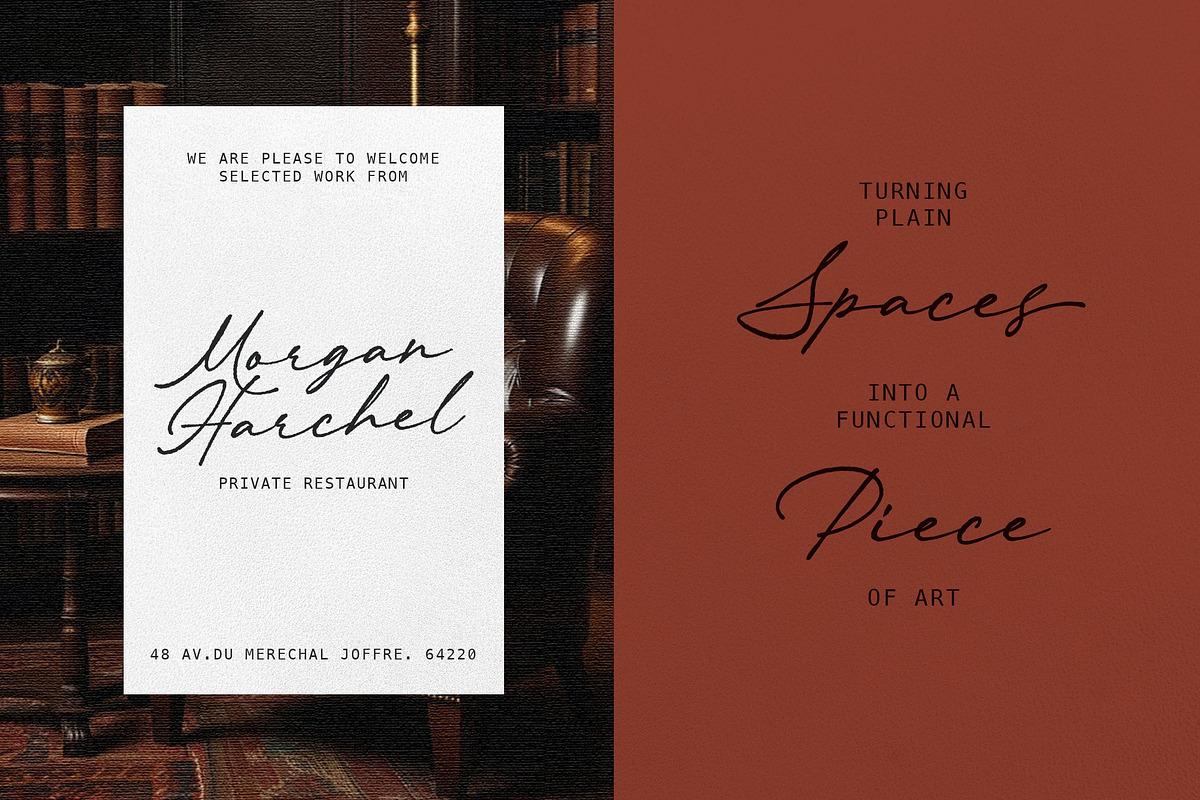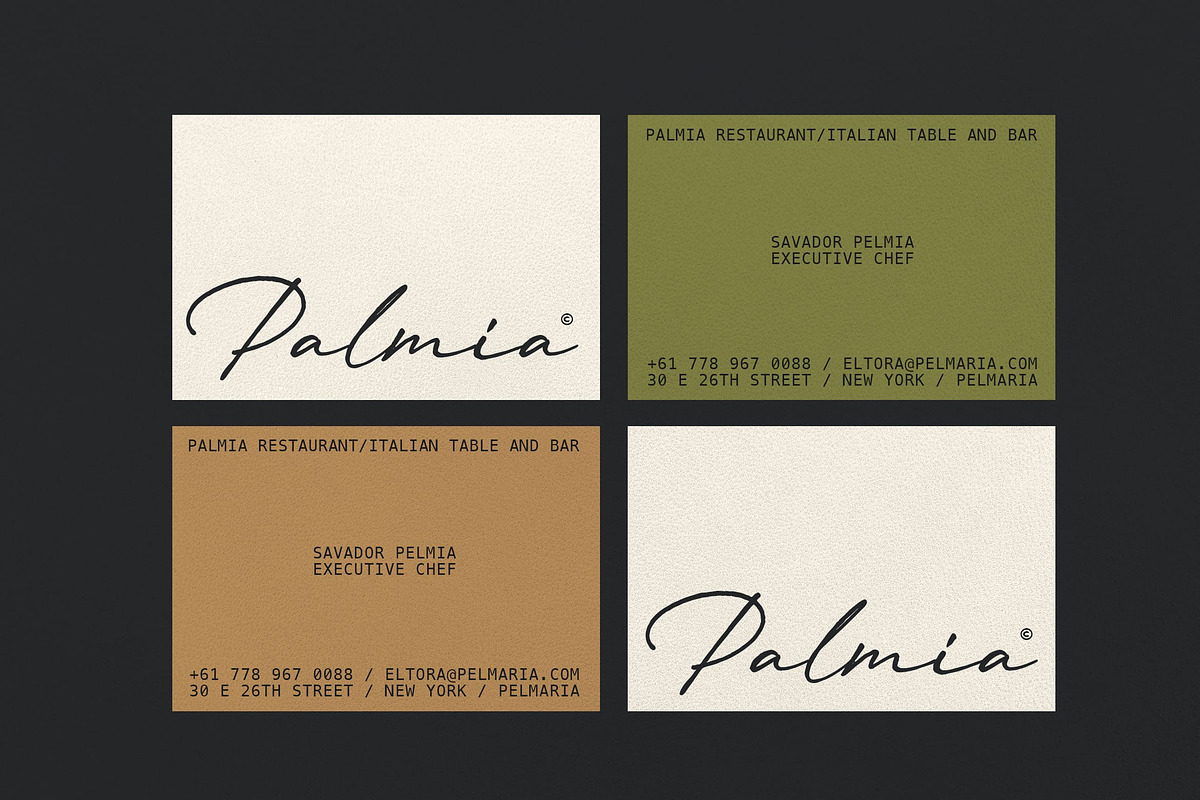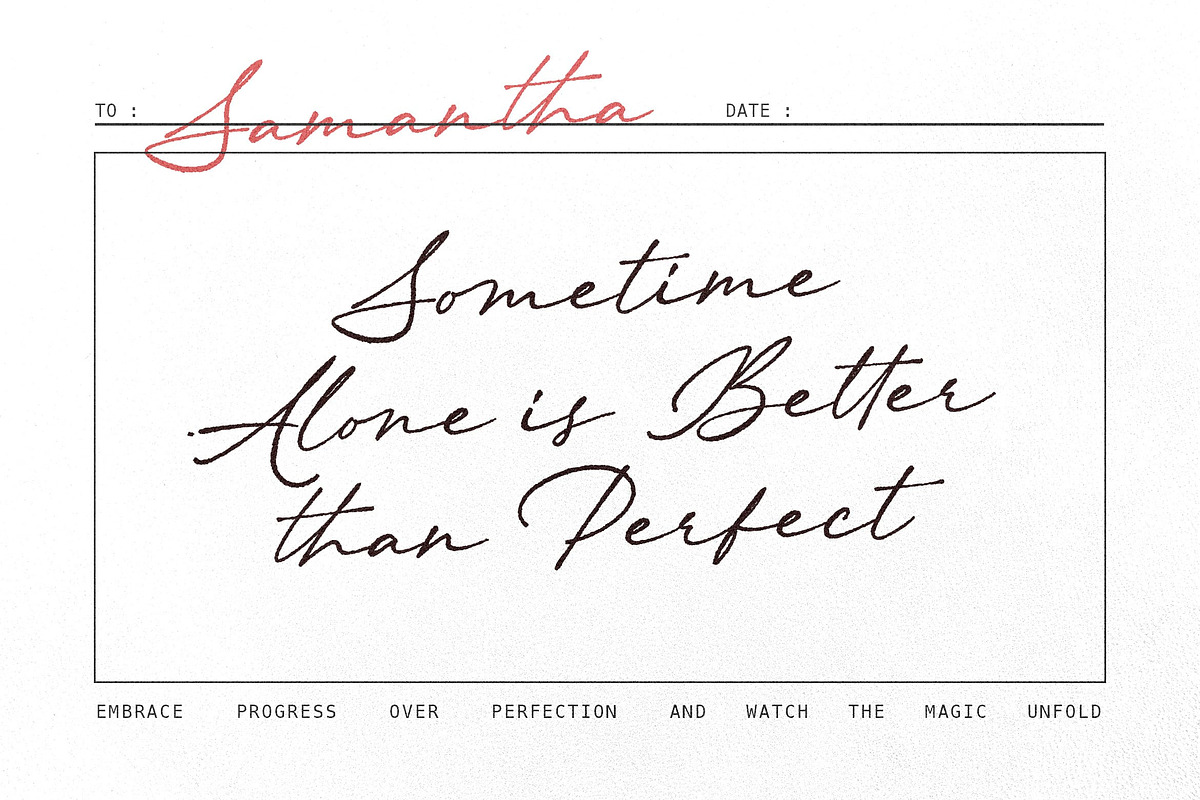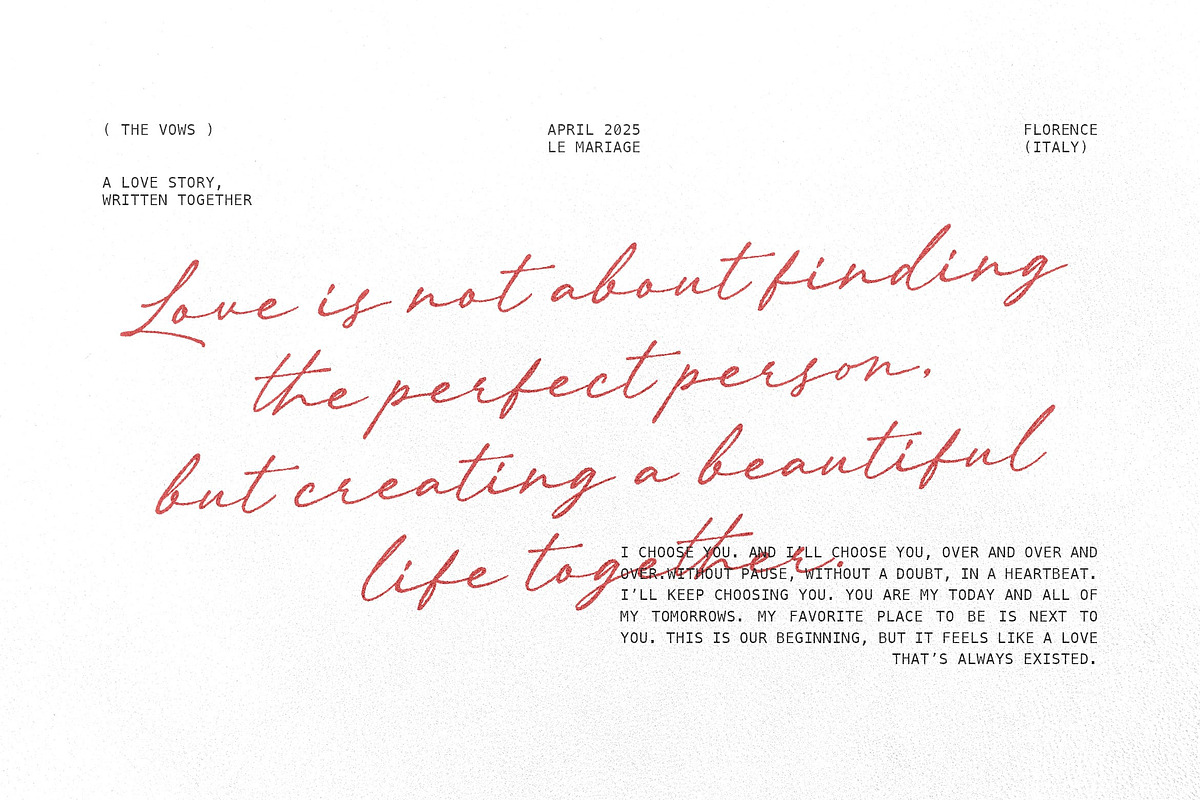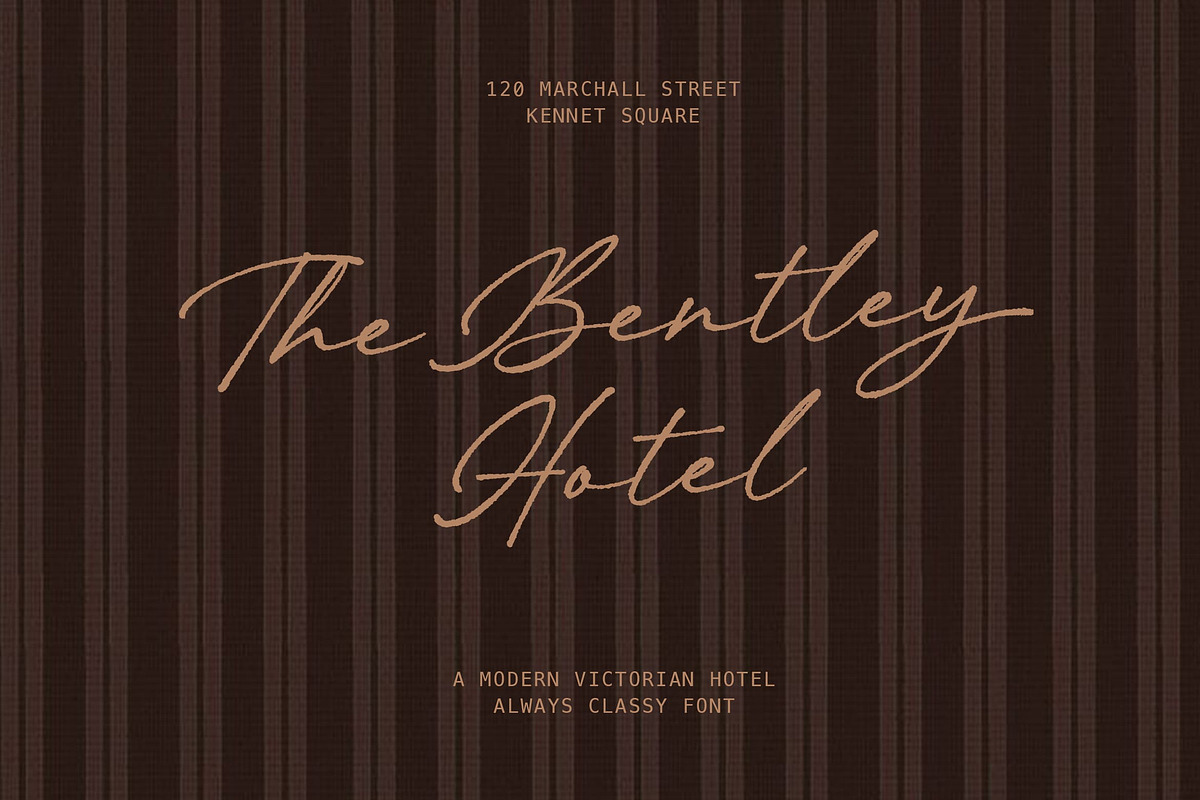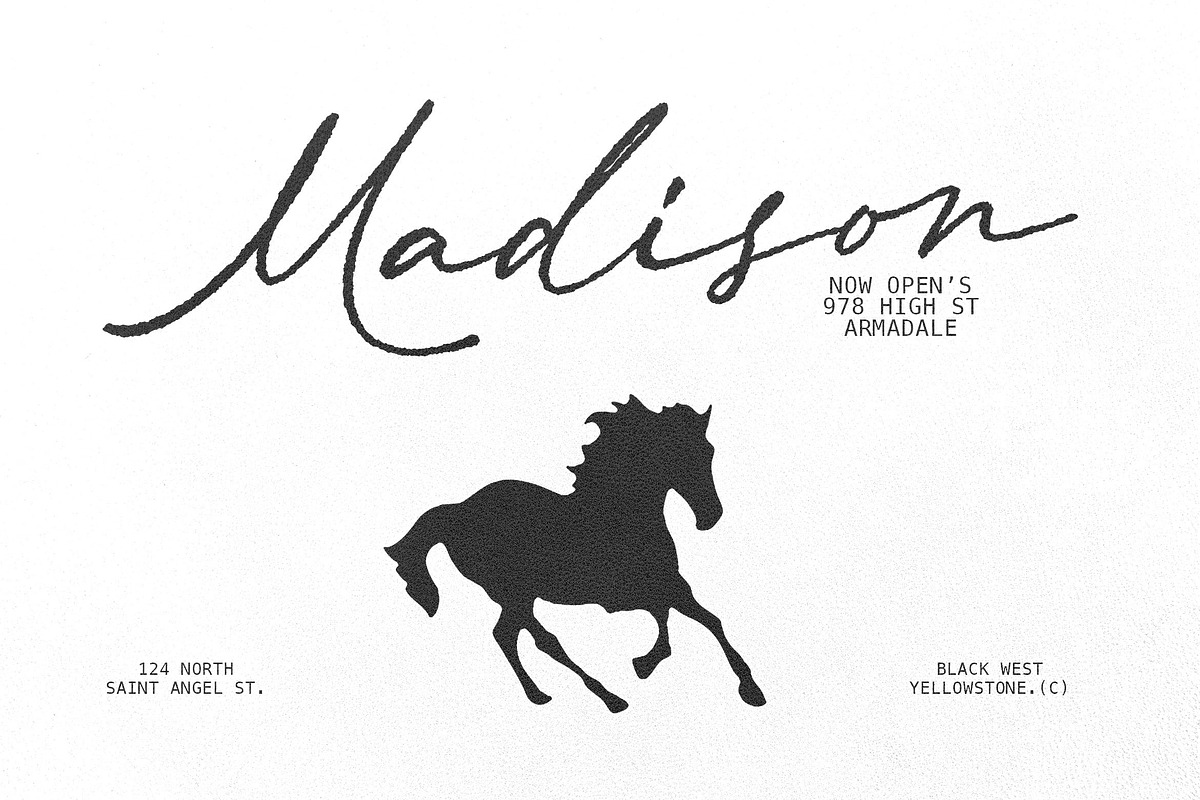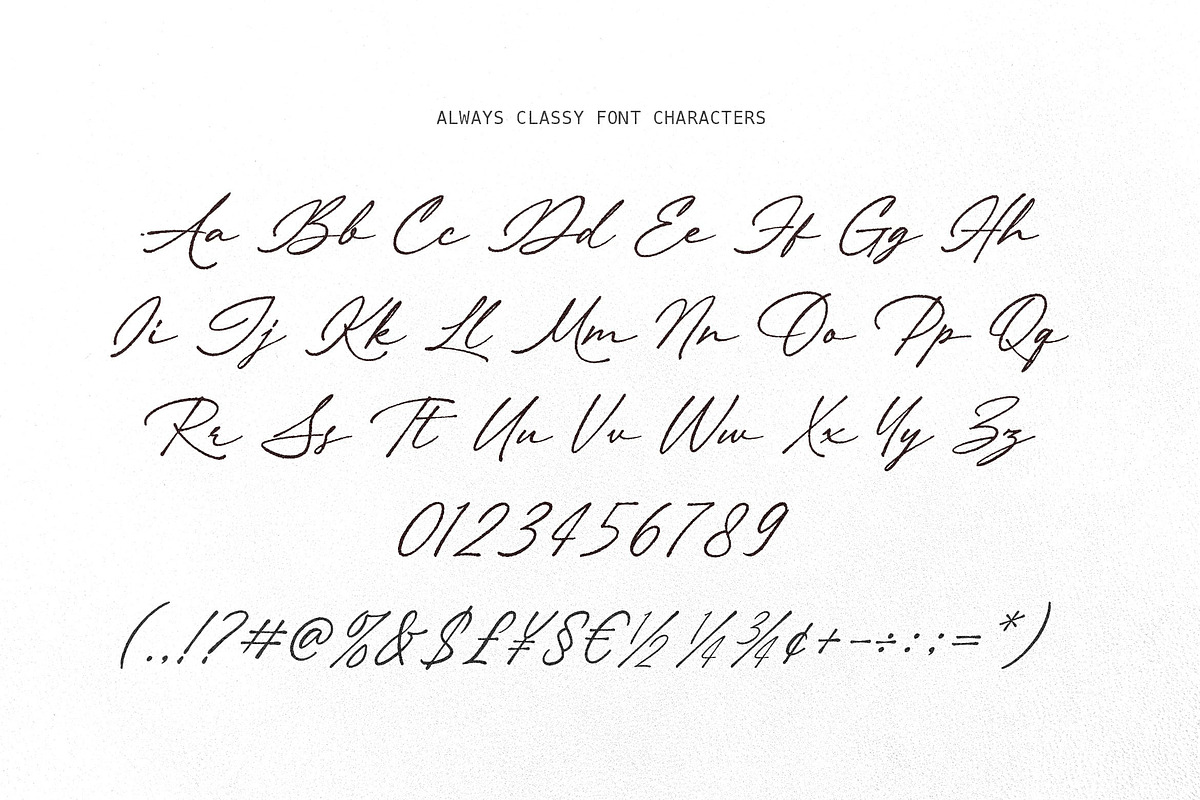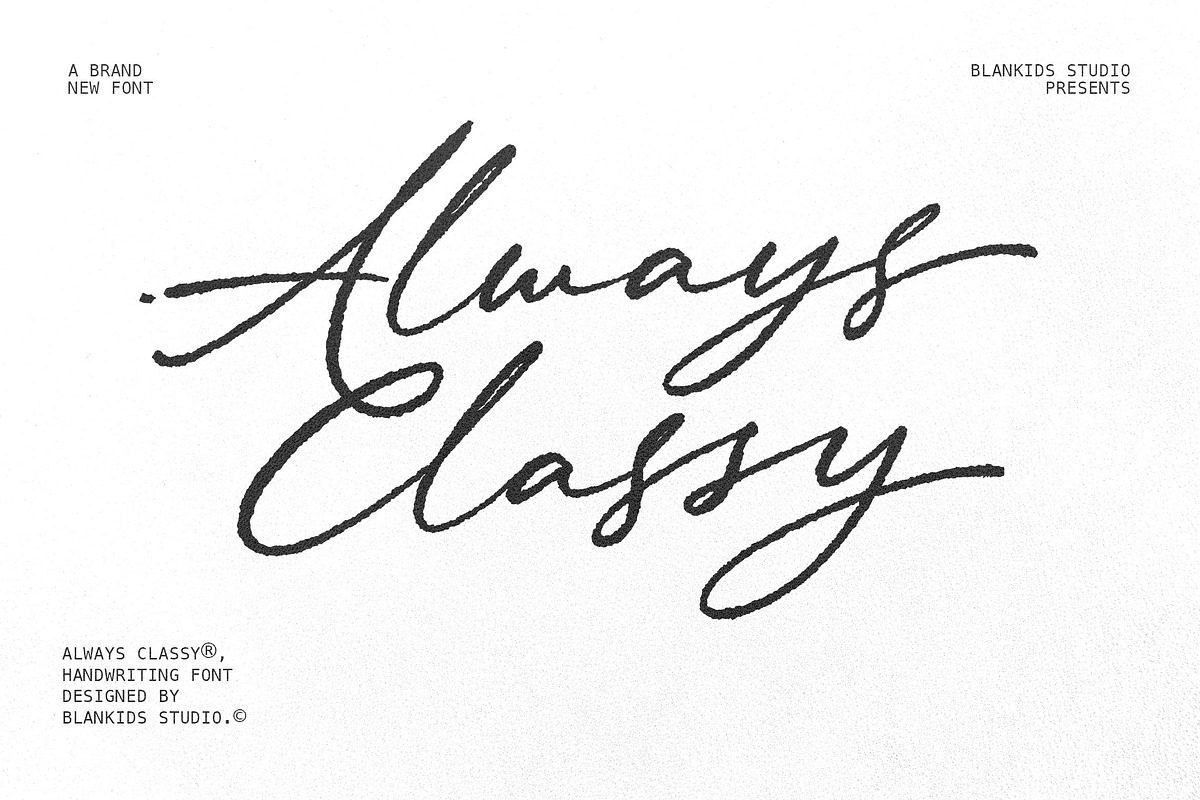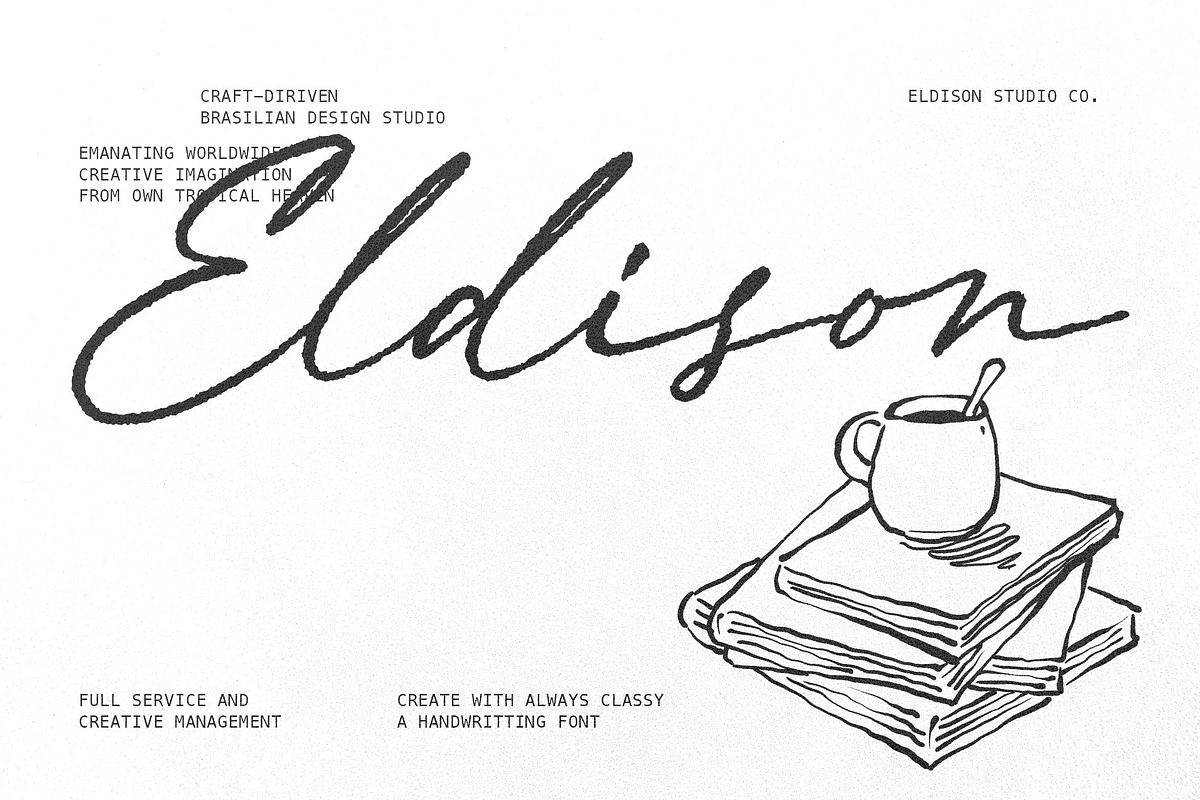
Always Classy – Elegant Handwritten
Always Classy – Elegant Handwritten Script Font
Always Classy is a sophisticated handwritten script font designed to bring timeless elegance and natural charm to your creative projects. Inspired by modern calligraphy and refined signature lettering, this font combines smooth flowing strokes, stylish ligatures, and graceful curves to create a truly luxurious handwritten feel.
Crafted with attention to detail, Always Classy captures the beauty of authentic pen-on-paper writing while maintaining excellent readability. Its balanced rhythm and natural baseline make every word look effortlessly stylish—perfect for both professional branding and romantic design themes.
Why Choose Always Classy?
Always Classy was created for designers who want a premium script font that feels personal, warm, and upscale at the same time. The subtle texture and fluid letterforms help your typography feel organic, human, and memorable.
- Elegant handwritten script style
- Smooth curves and natural flow
- Stylish ligatures for realistic handwriting
- Perfect balance between beauty and readability
- Works beautifully for print and digital use
Always Classy shines in projects that need a touch of romance, luxury, and personality, such as:
- Wedding invitations & stationery
- Branding and logo design
- Social media graphics
- Quotes and typography art
- Packaging and product labels
- Fashion and beauty branding
- Book covers and editorial design
- Hotel, café, and lifestyle branding
Whether you are creating a romantic wedding suite, a premium brand identity, or elegant social media content, Always Classy will elevate your typography with graceful sophistication and modern charm.
Add a timeless handwritten touch to your designs with Always Classy where elegance meets authenticity.